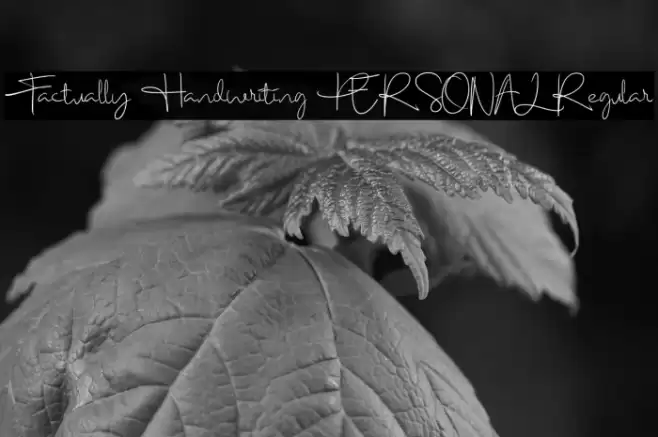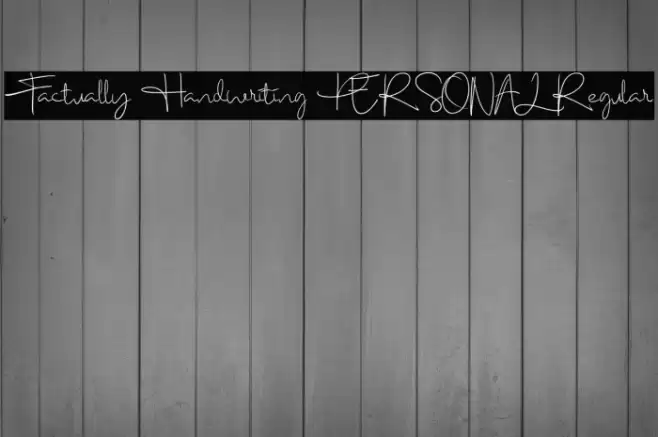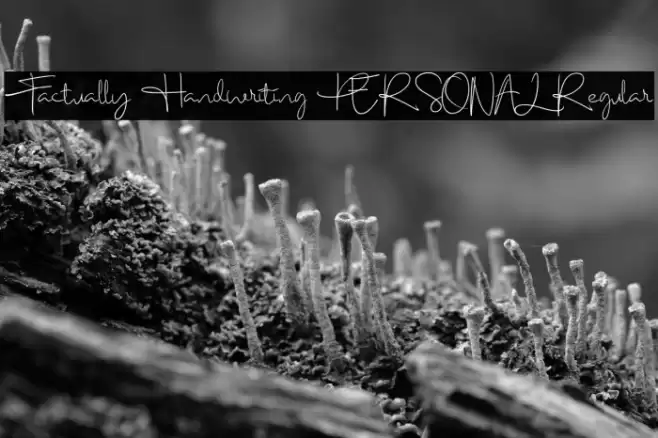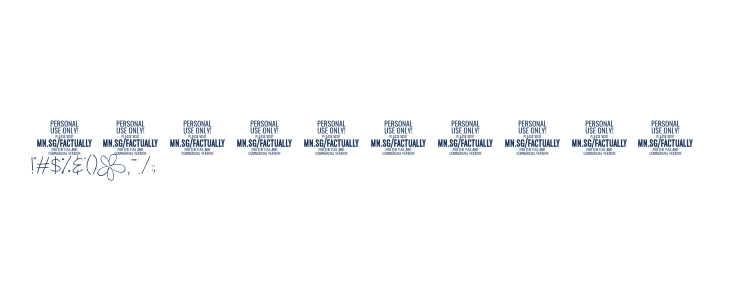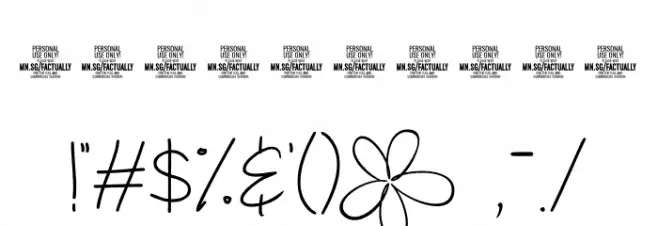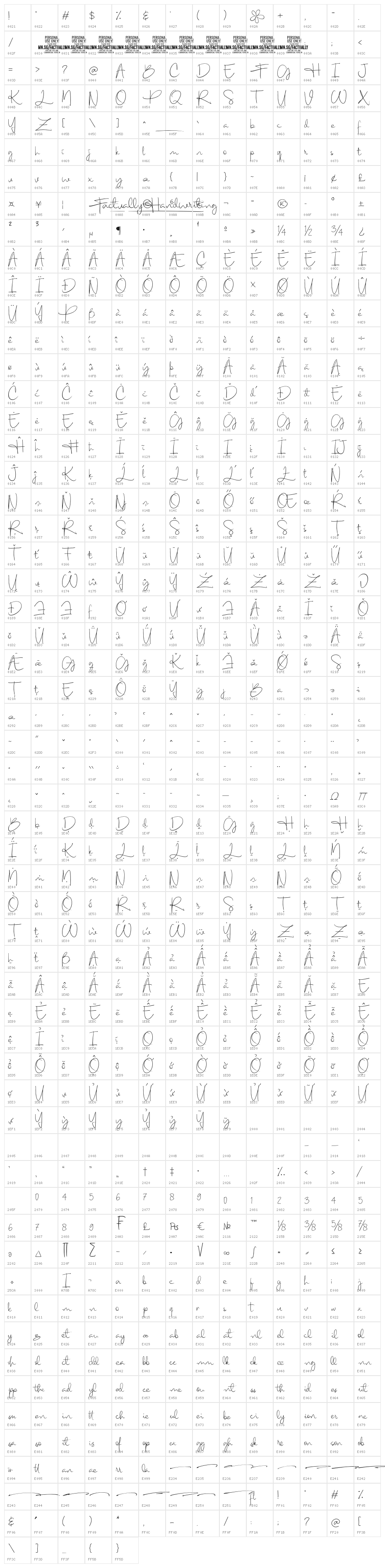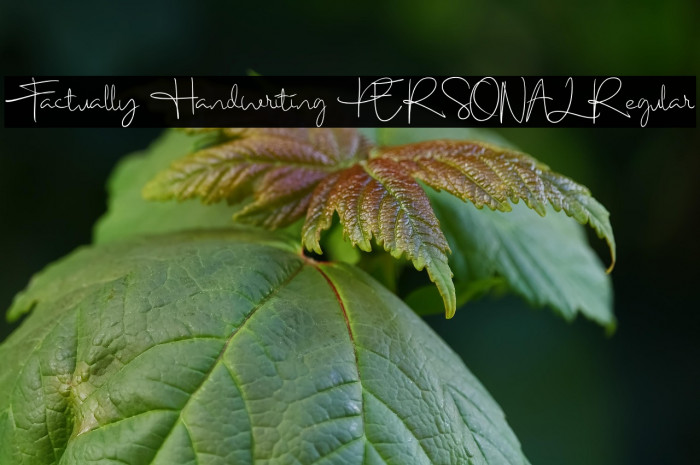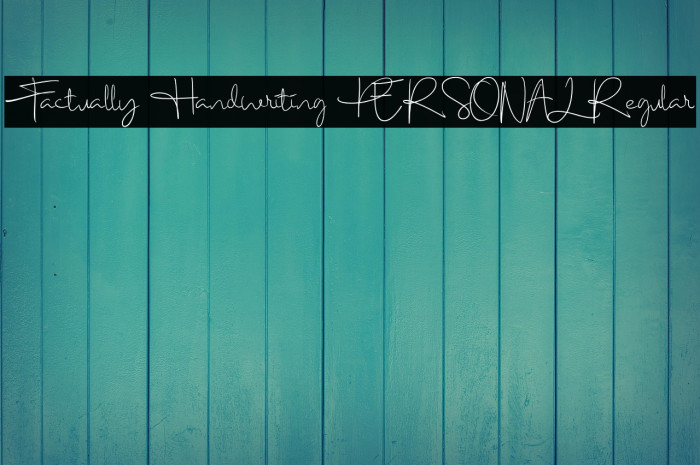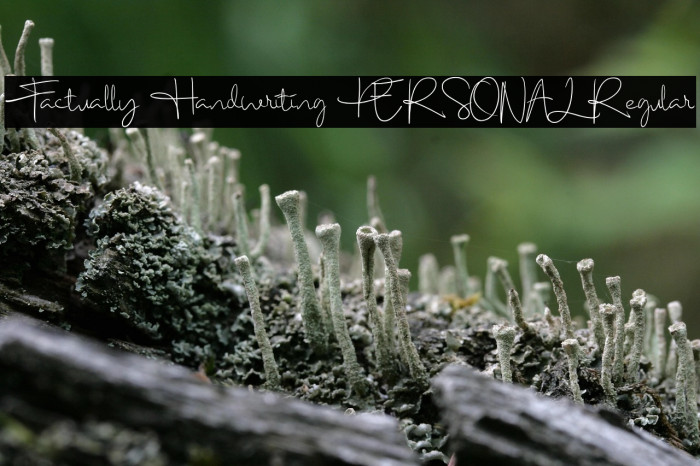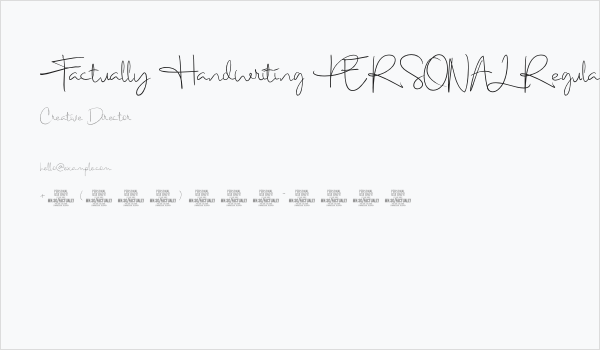
Factually Handwriting PERSONAL Regular Font
Factually Handwriting PERSONAL Regular Description
This font exudes a casual and artistic flair, characterized by its fluid and free-flowing strokes that mimic natural handwriting. The uppercase letters are bold and expressive, with unique flourishes that add a touch of whimsy. The lowercase letters maintain a consistent flow, enhancing the handwritten feel. The numerals and special characters are crafted with the same attention to detail, ensuring a cohesive look across all elements. This font is perfect for projects that require a personal touch, such as invitations, greeting cards, or creative branding. Its playful yet elegant style makes it versatile for various design needs.
A fluid, artistic handwriting font with expressive strokes and whimsical flourishes from Uncategorized fonts.